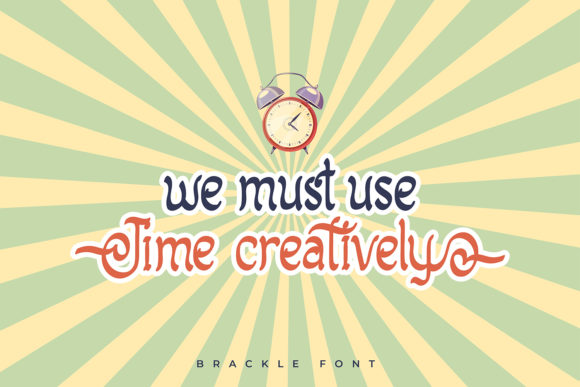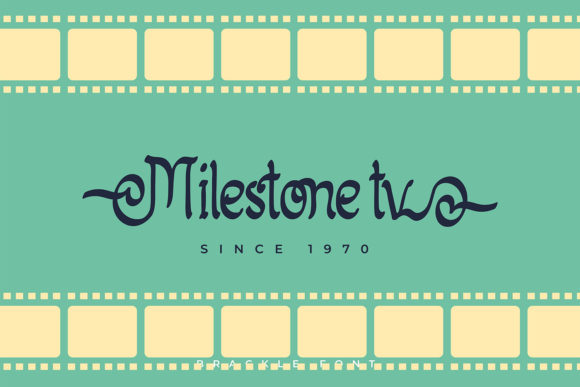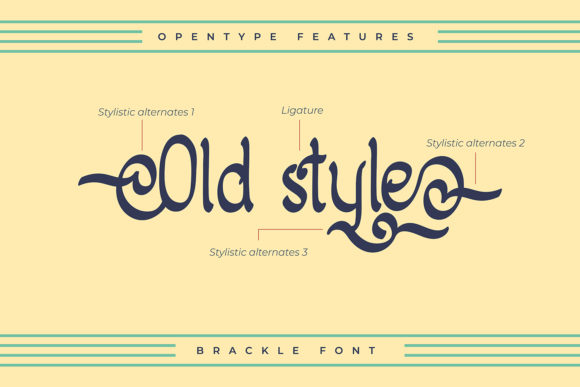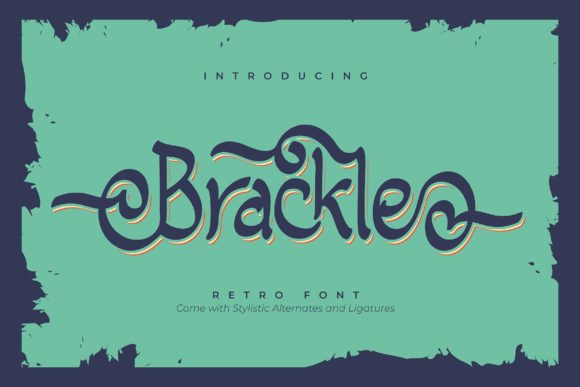
Introduction to Brackle Font
Brackle is an incredibly distinct and interesting display font.
This font is PUA encoded which means you can access all of the glyphs and swashes with ease Fall in love with its incredibly versatile style and use it to create gorgeous wedding invitations, beautiful stationary art, eye-catching social media posts, and much more.
Brackle Font offers exceptional quality and versatility, making it a valuable addition to your design toolkit. Whether you’re creating for personal projects or commercial use, Brackle Font delivers professional results.